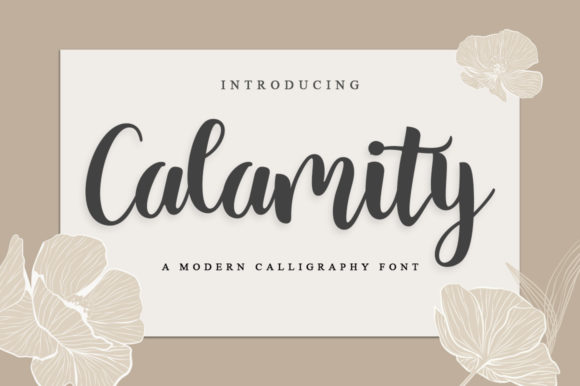
The Elusive Perfect Font: My Encounter with Calamity
I’ll never forget the design project that had me scouring the internet for the perfect font. My client wanted a sophisticated, elegant look for their branding, and I was determined to deliver. After hours of searching, I stumbled upon Calamity Font – a chic, refined script font that emanated sophistication and elegance. Its stylish alternates and ligatures made it the perfect match for the project, and I knew I had found what I was looking for.
An Honest Review of Calamity Font
• ✨ Elegant and sophisticated design that’s perfect for high-end branding
• ✅ Extensive OpenType features, including stylistic alternates and ligatures
• 💫 Highly legible, even at smaller font sizes
• 🎨 Versatile and can be used for a variety of design projects, from logos to invitations
While Calamity Font is an excellent choice, there are a few things to keep in mind:
• ⚠️ Some users may find the font a bit too ornate for certain projects
• 🤔 Limited availability of condensed or bold weights, which may limit its use in certain designs
The Story Behind Calamity Font
Calamity Font was designed by a team of typographers who wanted to create a font that embodied elegance and sophistication. Inspired by classic calligraphy and refined script fonts, Calamity Font was crafted to be both beautiful and functional. With its extensive OpenType features and stylish alternates, Calamity Font has become a popular choice among designers and crafters.
Q: What is Calamity Font?
A: Calamity Font is a chic, refined script font that emanates sophistication and elegance.
Q: What are OpenType features?
A: OpenType features are advanced typographic features that allow for greater flexibility and customization in typography. In Calamity Font, these features include stylistic alternates, ligatures, and more.
Q: Is Calamity Font suitable for body text?
A: While Calamity Font is highly legible, it’s primarily designed for display use. For body text, you may want to consider a more traditional serif or sans-serif font.